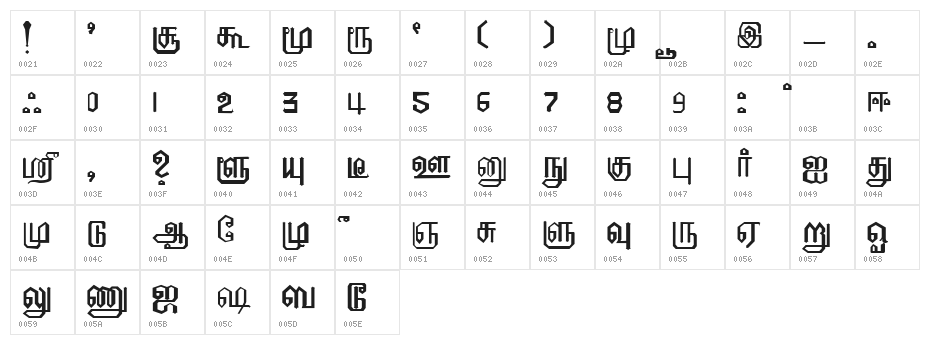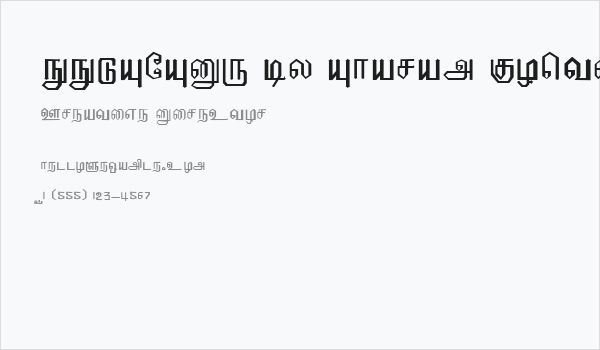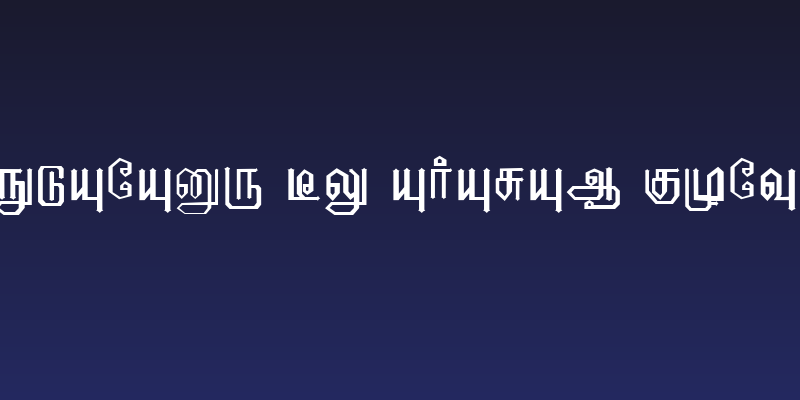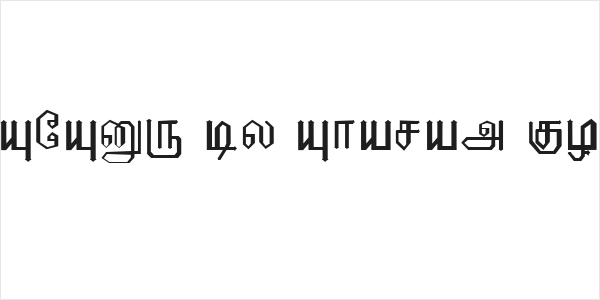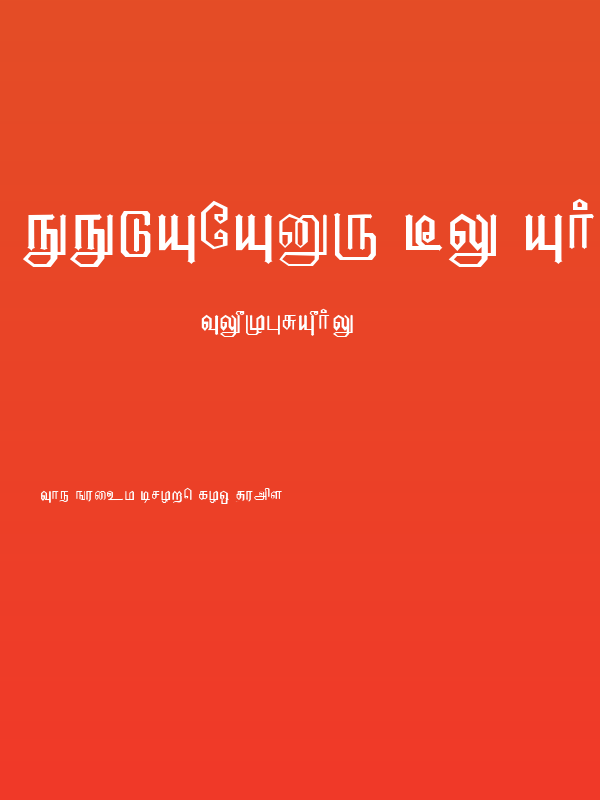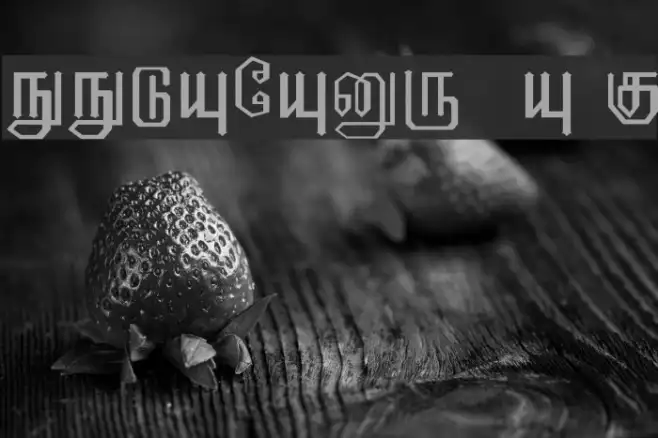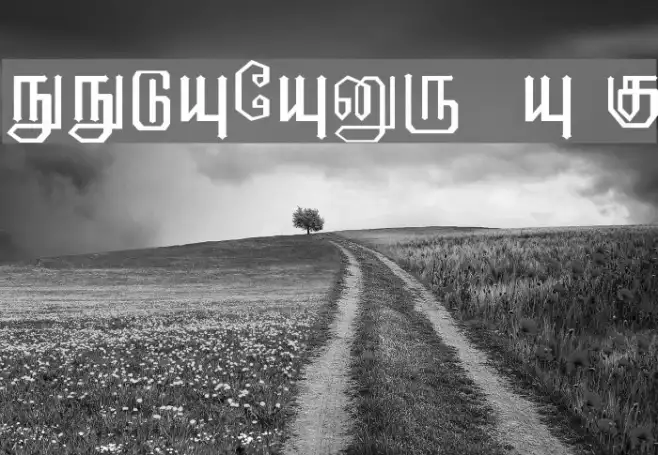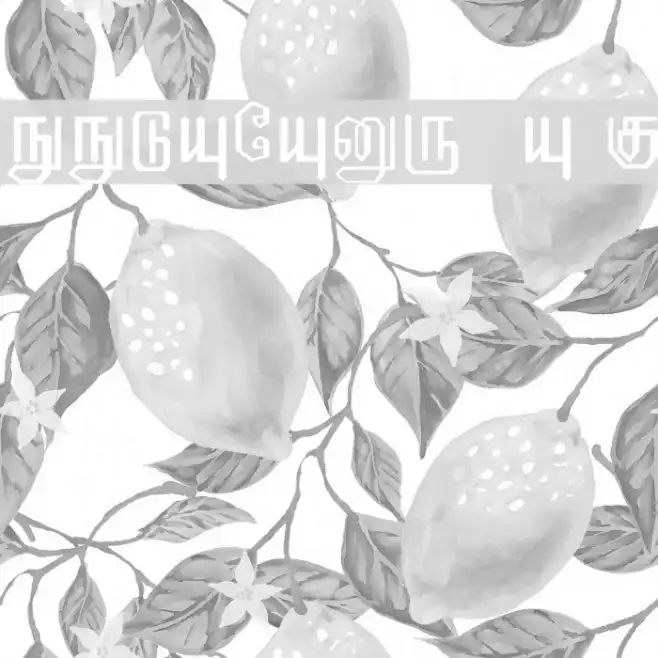
EELANADU by Aharam Fonts Font
EELANADU by Aharam Fonts Description
This font features a bold and angular design, reminiscent of traditional Tamil script with a modern twist. The characters are sharply defined with a geometric influence, creating a striking visual impact. The numerals and special characters maintain the same angular style, ensuring consistency across all elements. This font is ideal for projects that require a cultural touch with a contemporary edge, making it suitable for both digital and print media. The unique style of this font can enhance the visual appeal of any project, providing a distinct and memorable look.
| Proposed Projects | Ideal for cultural projects, branding, posters, and digital media requiring a unique and bold style. |